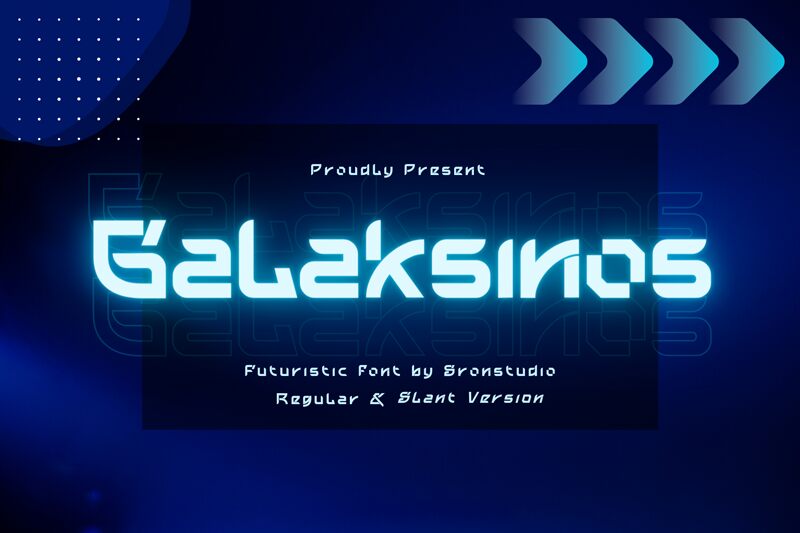
Galaksinos by Sronstudio is a captivating display font with a bold, futuristic aesthetic. Its expanded width and sleek, angular lines convey a sense of technological advancement and cosmic exploration. The striking contrast between the thick strokes and negative space creates a visually striking and dynamic typographic presence, capturing the imagination with its glimpse of a tomorrow brimming with possibility.
This versatile font shines in a variety of applications, from eye-catching logos and headers to impactful branding materials and signage. Its futuristic flair lends itself seamlessly to sci-fi narratives, digital interfaces, and modern, forward-thinking design projects. Galaksinos' expansive character set and multilingual support further enhance its versatility, making it a compelling choice for designers seeking to craft bold, memorable typography that resonates with audiences.